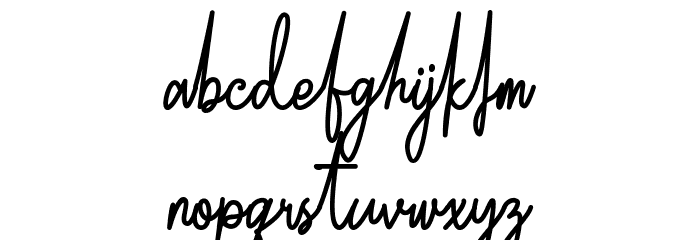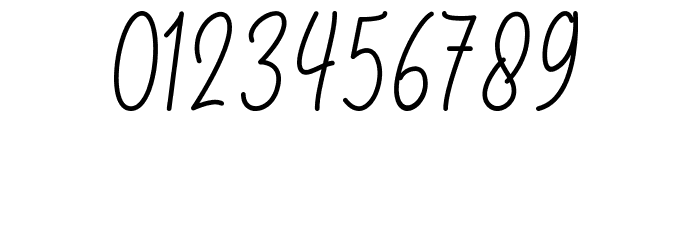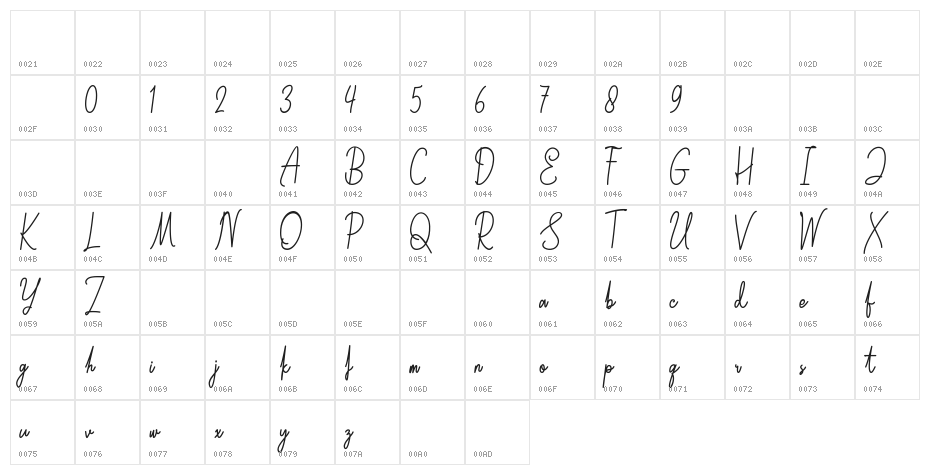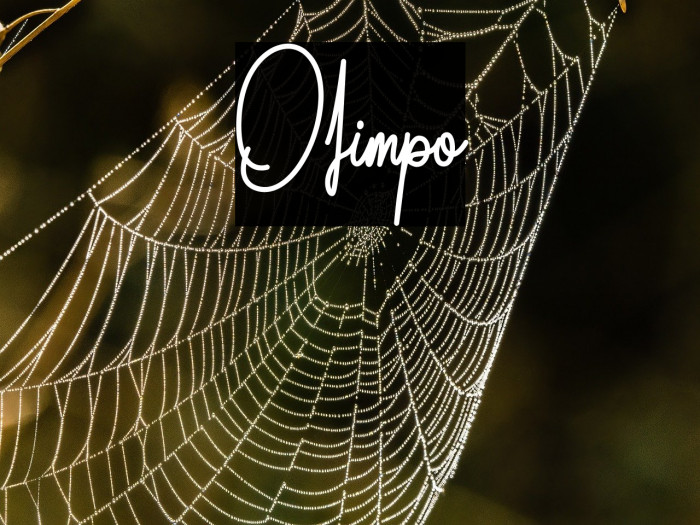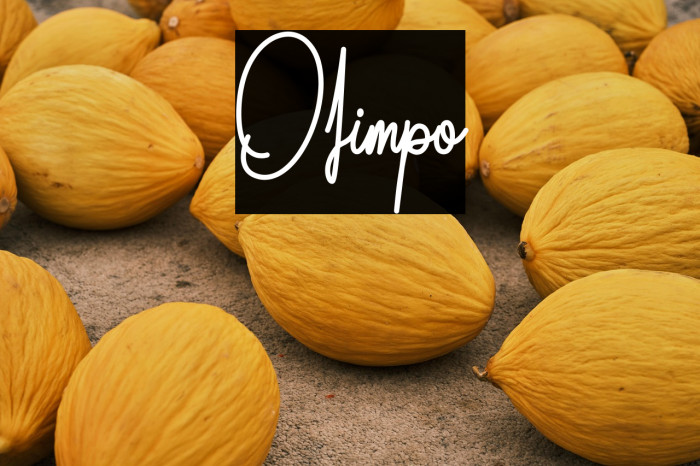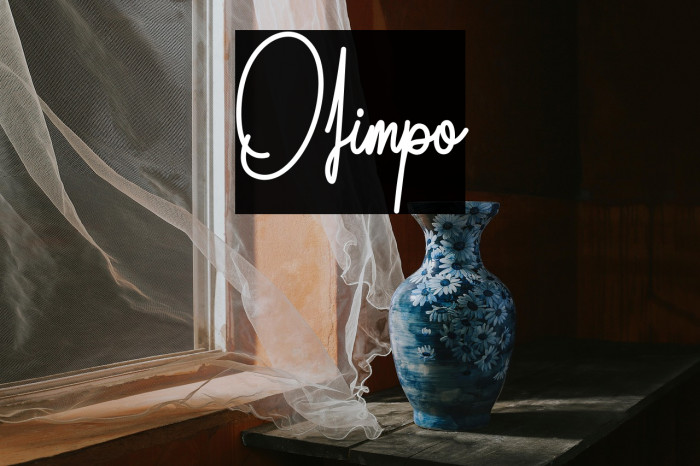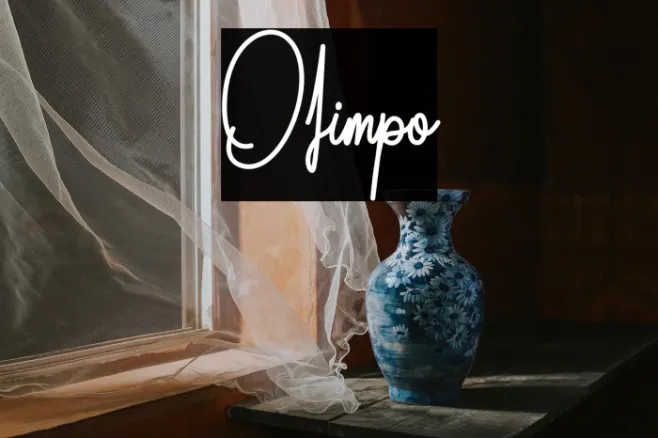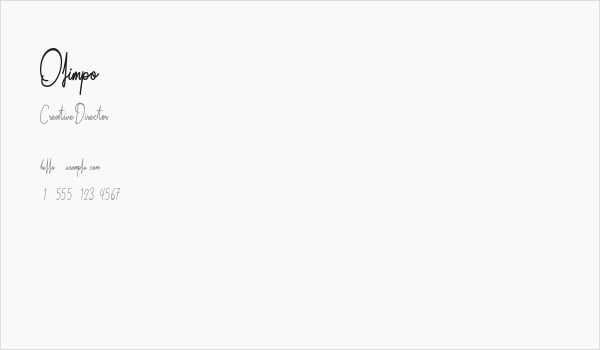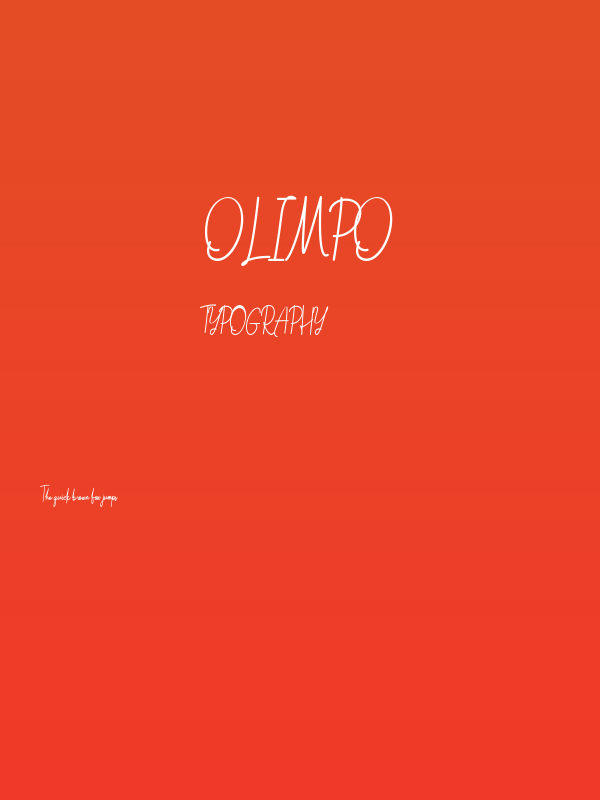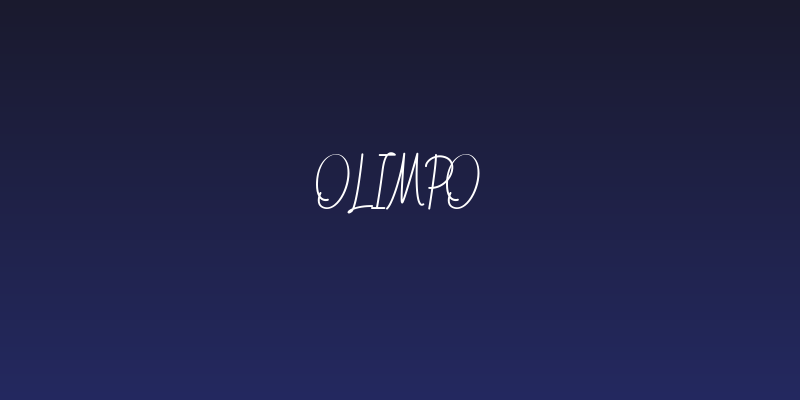
Olimpo Font
This font features a unique blend of elegance and playfulness, characterized by its handwritten style. The uppercase letters are tall and slender, with a slight slant that adds a dynamic feel. The lowercase letters maintain a consistent flow, with smooth curves and a natural, organic appearance. Numbers are clear and legible, maintaining the same handwritten aesthetic. The special characters are creatively designed, complementing the overall style. This font is perfect for projects that require a personal touch, such as invitations, greeting cards, or branding materials.
A playful and elegant handwritten font with a dynamic slant.
- Font: Olimpo
- Proposed Projects: Ideal for invitations, greeting cards, branding, and personal projects.
- Category: Handwritten
- Use Case: Headlines, Logos, Invitations